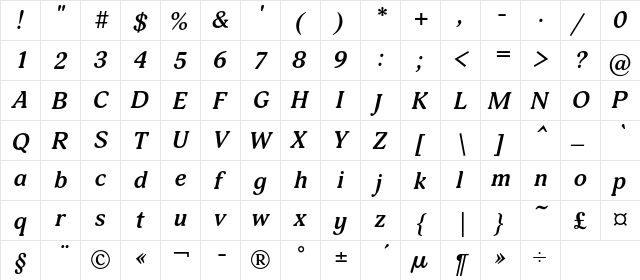
AdonisC Bold Italic
Design Context for AdonisC Typeface
AdonisC takes a measured approach to typography — its balanced proportions and neutral character make it a reliable workhorse for both digital and print work. The slanted form adds forward momentum and visual energy. The heavy weight commands attention and anchors typographic hierarchies.
Pro Tip: Use AdonisC for emphasis, pull quotes, and subheadings where its slanted energy can add rhythm to the layout.